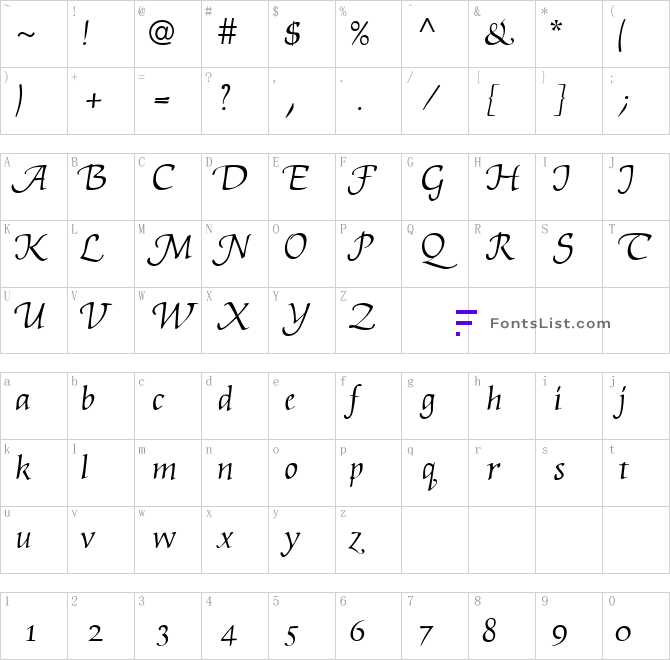
- Font Name:Artemisia EF
Artemisia-EF-Light.ttf is a very beautiful artistic font, Artemisia-EF-Light.ttf is widely used in the design and printing of various books and pictures,Artemisia-EF-Light.ttf has a strong visual impact,Artemisia-EF-Light.ttf is a commonly used font in newspapers, magazines and books, and is used in posters, e-commerce Poster design, store design, logo design, font design and other fields.Artemisia-EF-Light.